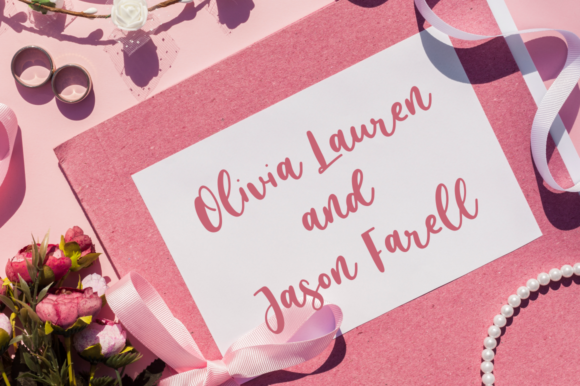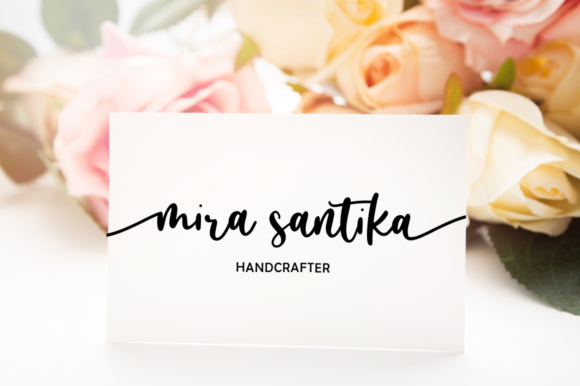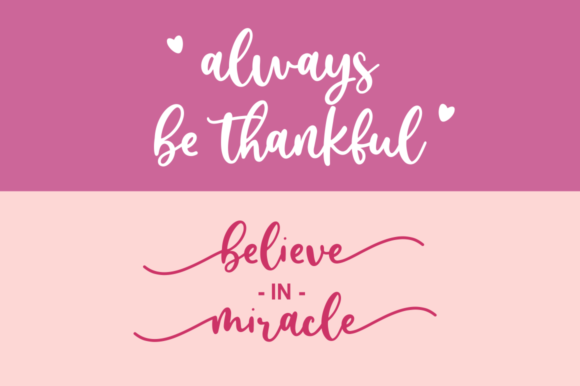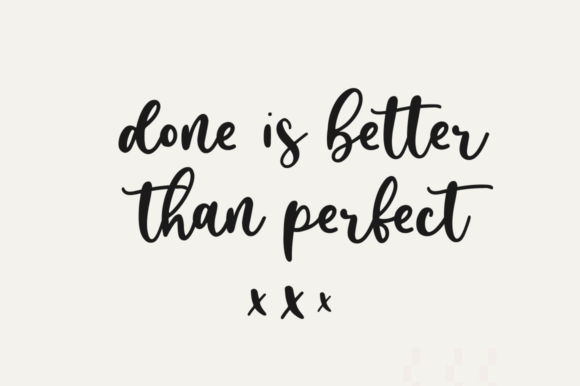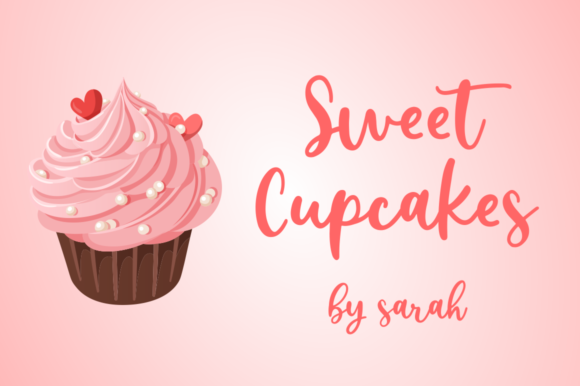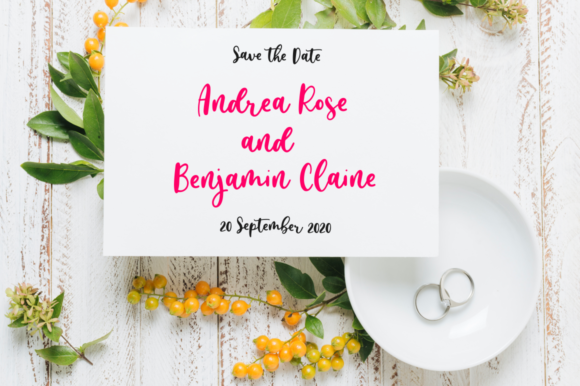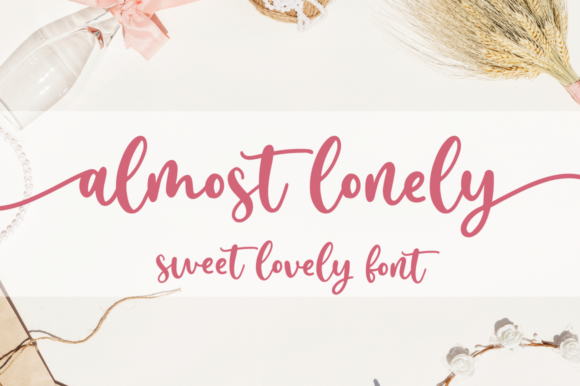
The Almost Lonely Font: A Sweet and Beautiful Script for Your Creative Projects
I’ll never forget the moment I stumbled upon the Almost Lonely font. I was working on a wedding invitation project for a client, and I was struggling to find the perfect script font that would capture the romantic and whimsical feel of the couple’s special day. As soon as I saw Almost Lonely, I knew I had found the one. Its sweet and beautiful letterforms seemed to dance on the page, and I couldn’t wait to share it with my client.
As a designer, I’m always on the lookout for fonts that can help me create stunning projects with ease. Here’s what I love about Almost Lonely:
- ✨ Authentic feel: Almost Lonely has a unique, handwritten quality that makes it perfect for creating personal and intimate designs.
- ✅ Beautiful letterforms: The font’s elegant and flowing script is perfect for titles, headings, and body text.
- ✅ Highly versatile: Almost Lonely works beautifully for a wide range of projects, from wedding invitations and stationery to social media posts and greeting cards.
While Almost Lonely is an amazing font, it’s not perfect. Here are a few quirks to keep in mind:
- ⚠️ Limited character set: Almost Lonely doesn’t have an extensive character set, so you may need to get creative when using special characters or glyphs.
- 🤔 Occasional kerning issues: As with any script font, you may need to adjust the kerning to get the perfect spacing between letters.
The Story Behind Almost Lonely
Almost Lonely was designed by a talented type designer who wanted to create a font that captured the essence of handwritten script. The designer’s inspiration came from vintage letters, romantic novels, and the beauty of imperfection. The result is a font that’s both elegant and approachable, perfect for a wide range of creative projects.
| Font Name | Almost Lonely Font |
| Author | Sronstudio |
| What is the Almost Lonely font best used for? | Almost Lonely is perfect for wedding invitations, stationery, social media posts, greeting cards, and any project that requires a touch of elegance and whimsy. |
| Does Almost Lonely support OpenType features? | Yes, Almost Lonely supports OpenType features like glyphs, stylistic alternates, and more. Be sure to check the font’s documentation for specific features and usage guidelines. |